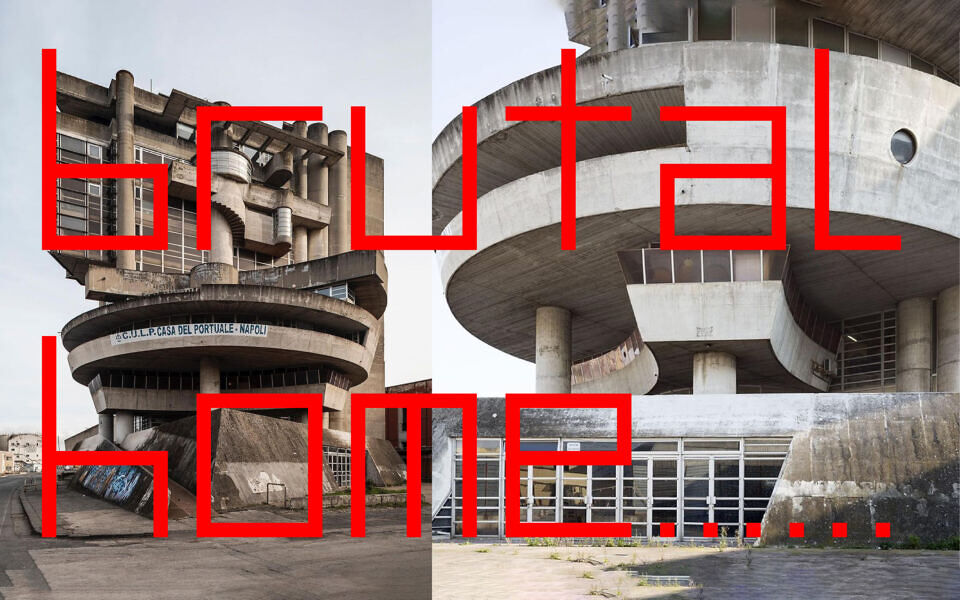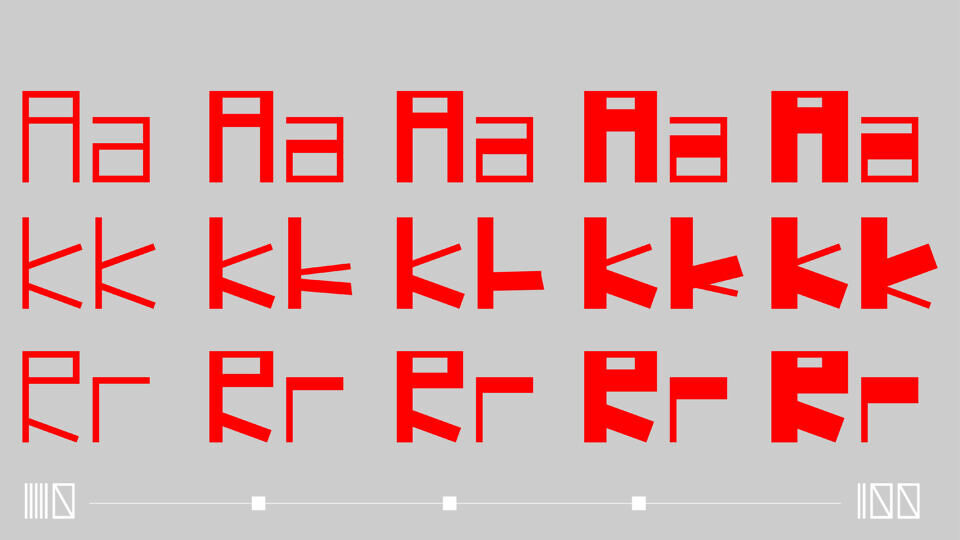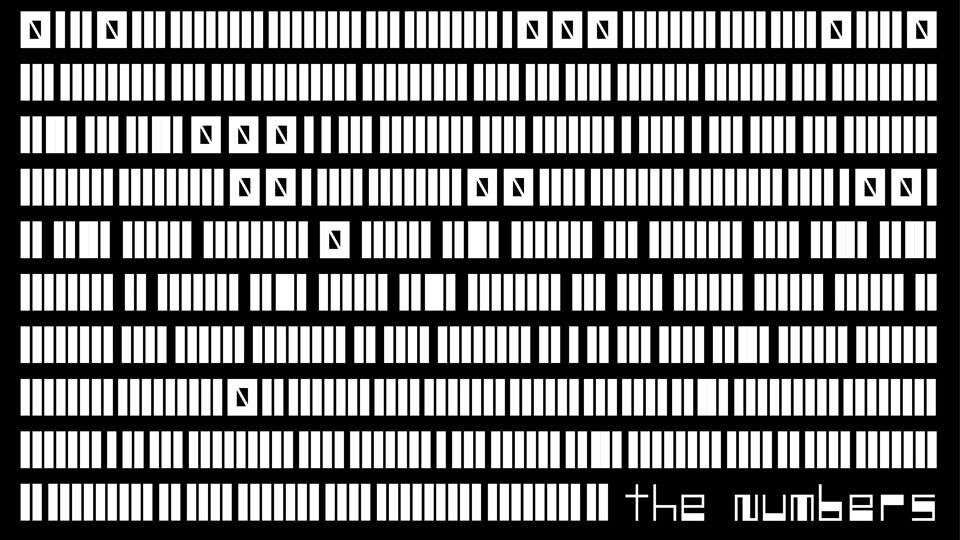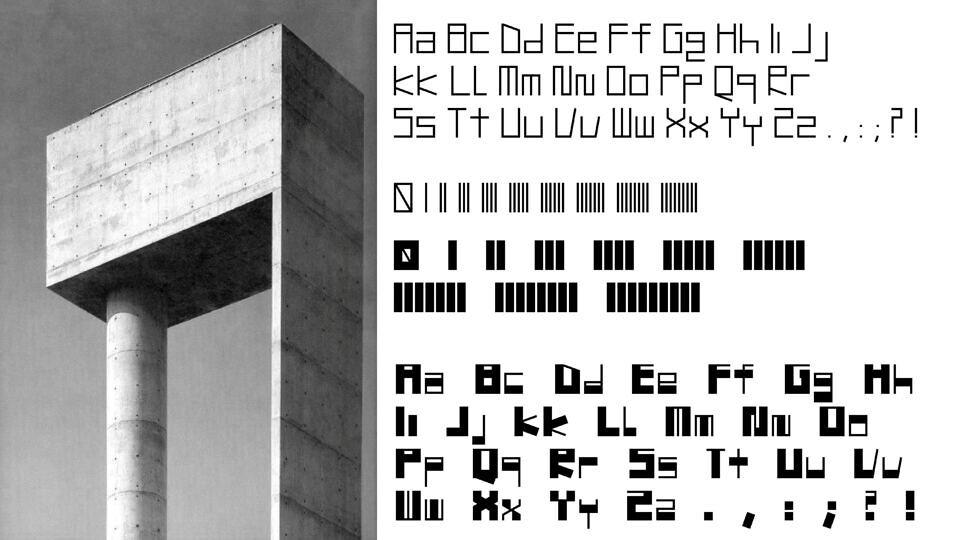
This variable font draws its raw energy from the aesthetics of brutalist architecture: hard edges, heavy structures, and unapologetically rigid forms. Each glyph is a building block — a visual echo of concrete and steel.
Its standout feature? The numbers are rendered as concrete rods, with the quantity matching the value:
- the 1 is a single vertical beam, the 3 becomes a triplet of stacked bars, and so on up to 9.
- These aren’t just digits — they’re modular units, almost sculptural in form.
Thanks to its variable nature, the font shifts seamlessly between weights and widths, adapting to both strict grids and more experimental compositions.